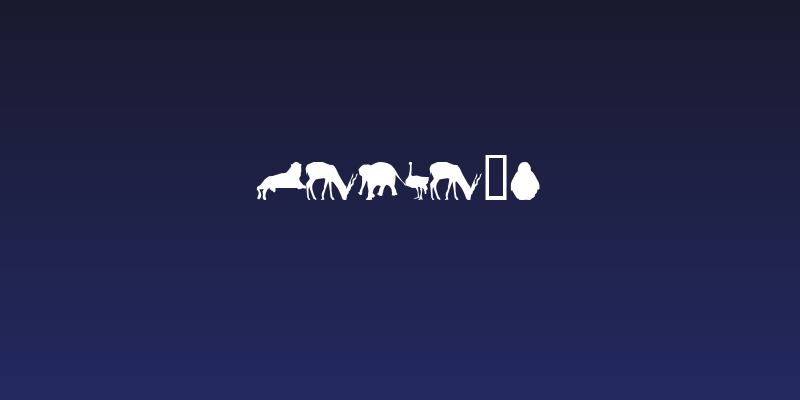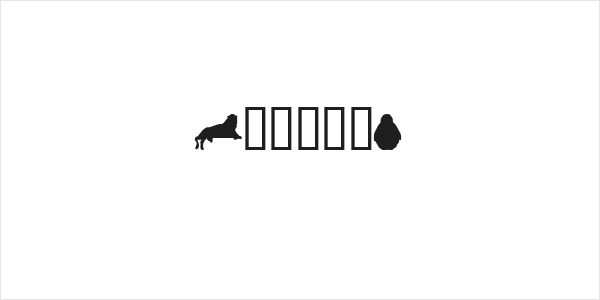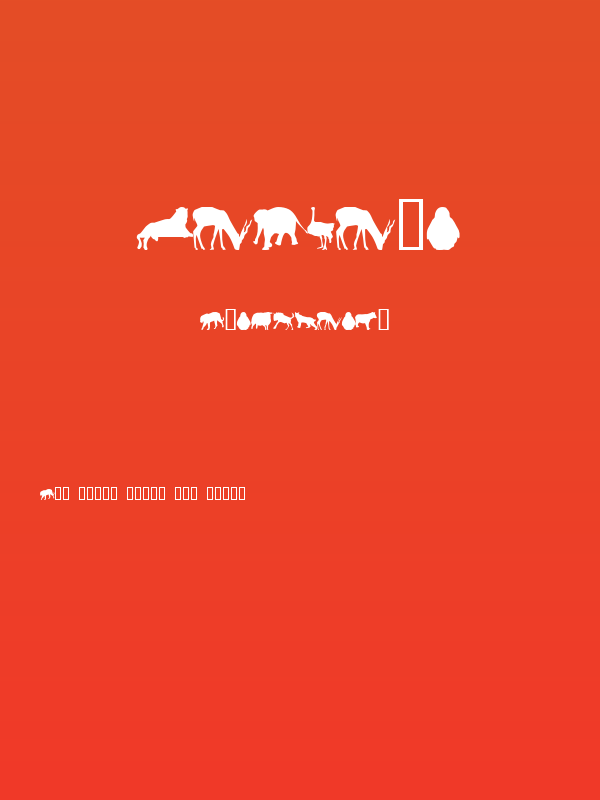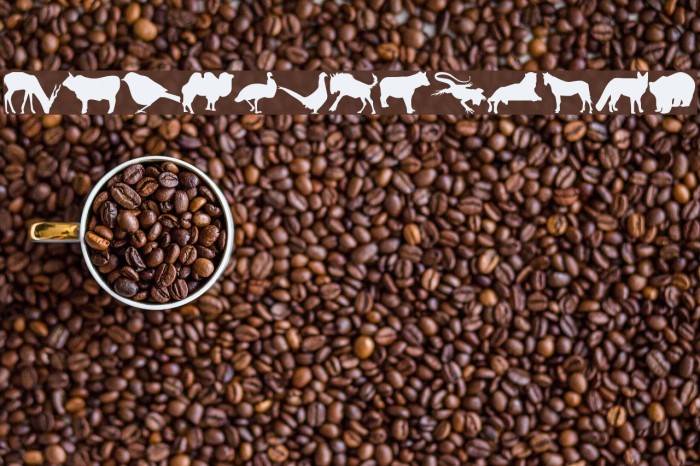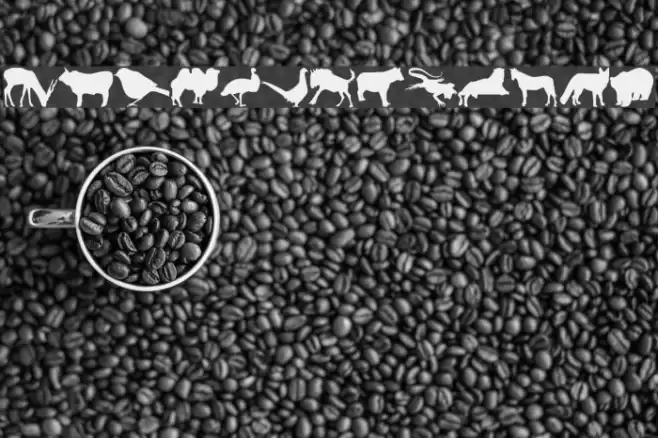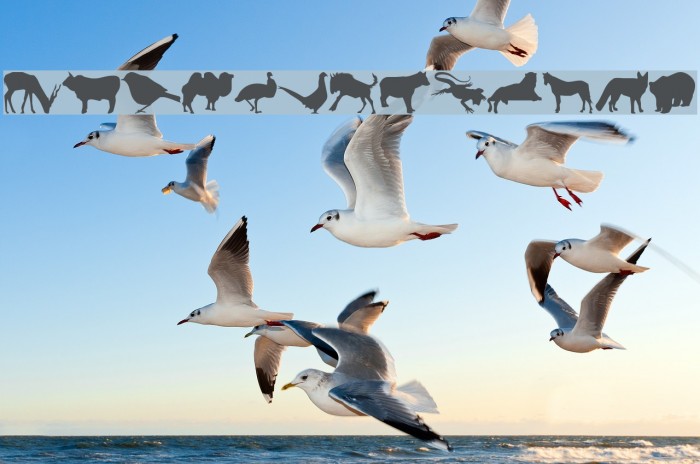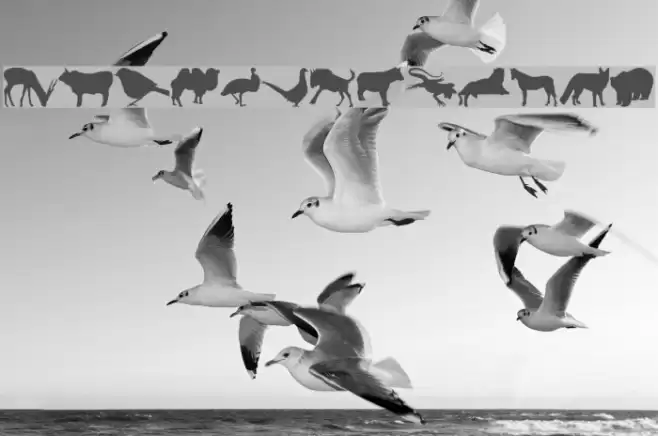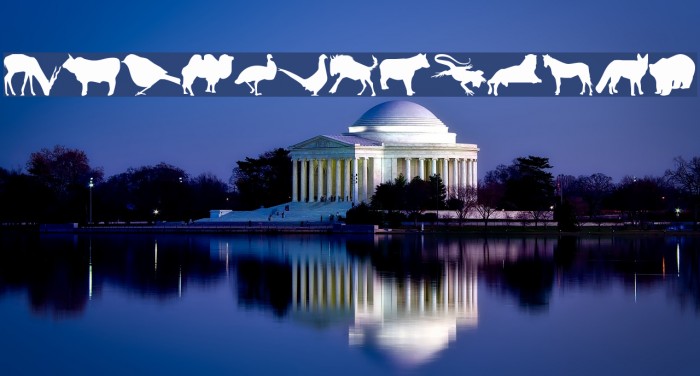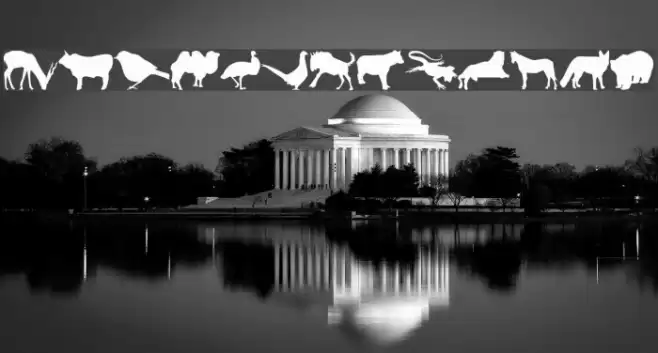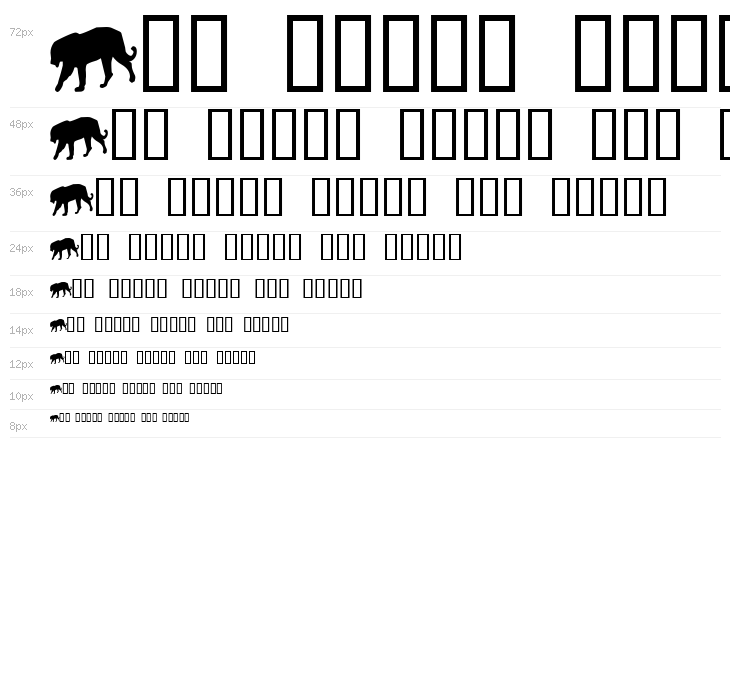
Jasna_P Font
Jasna_P Description
A playful decorative font featuring solid black animal silhouettes representing each letter and number, with each character uniquely shaped to resemble a different animal in profile. The style is whimsical and illustrative, with consistent solid fills and clear, recognizable animal forms.
| Overall Style | Decorative, Playful, Whimsical |
| Use Case | Logos, Posters, Headlines, Educational materials |
| Proposed Projects | Children’s books, educational materials, posters, playful branding, animal-related events. |